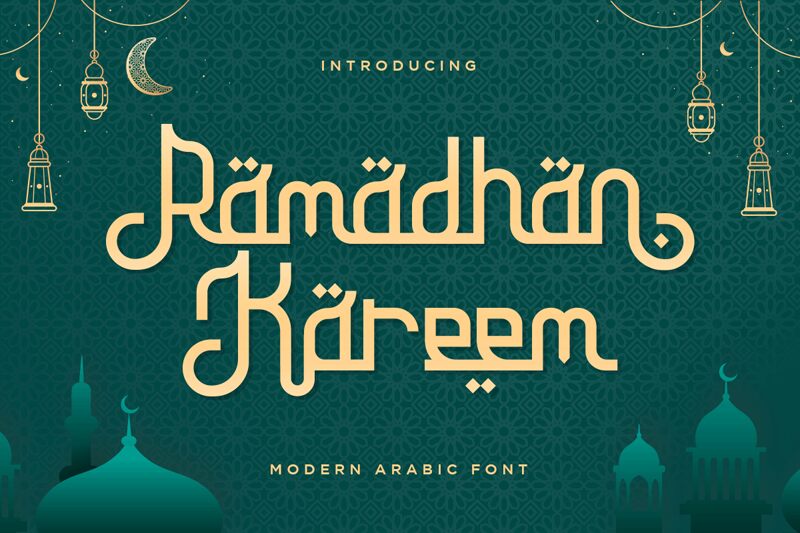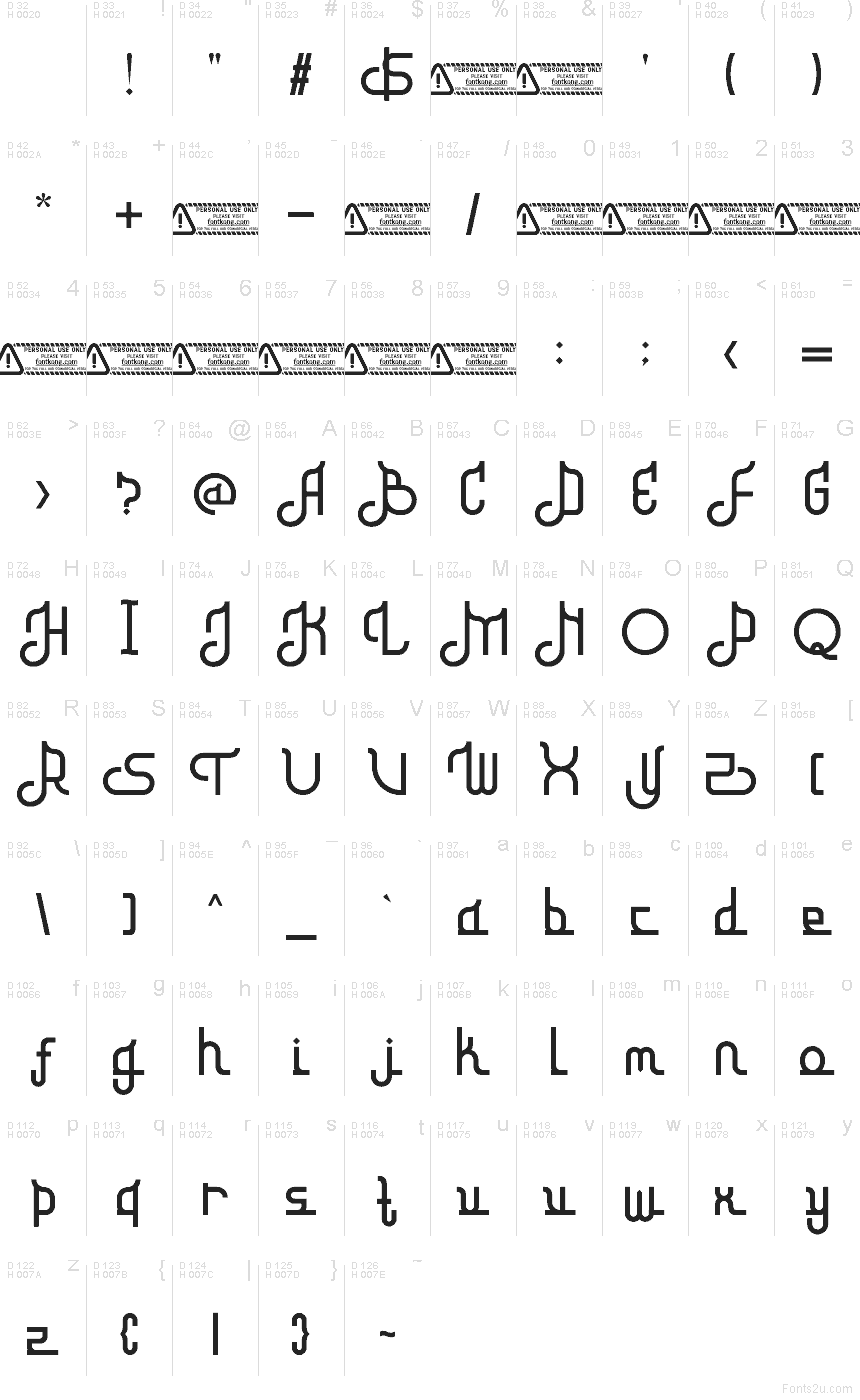
Ramadhan Kareem font by Kong Font is a free faux Arabic decorative typeface that instantly sets a festive, spiritual mood. Its smooth, looping strokes and squared corners echo Arabic calligraphy while staying clean and legible for Latin text. The letters link in a gentle rhythm, almost like a continuous ribbon, giving headlines a flowing, celebratory feel that suits religious holidays and cultural events.
Using Ramadhan Kareem, this free font really shines on Ramadan and Eid greeting cards, event posters, social media graphics, gift tags, banners, and packaging for sweets or dates. The consistent stroke weight keeps messages readable even at medium sizes, while the stylized forms add atmosphere without extra illustration. Pair it with a simple geometric sans serif for body copy to keep the focus on your ornate titles and key phrases.